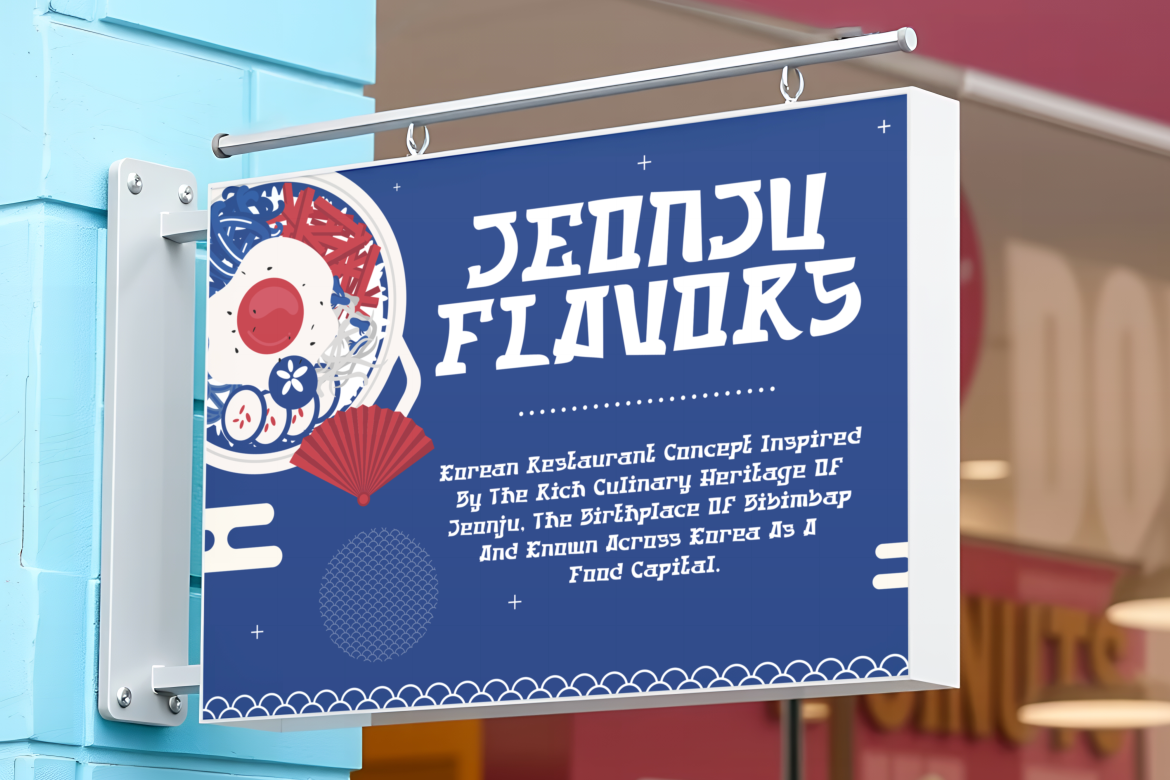
In the food industry, packaging often determines whether a customer notices a product or ignores it. While photography, colors, and illustrations play important roles, typography is frequently the element that creates the strongest first impression.
The best noodles font does more than display a product name. It communicates flavor, culture, personality, and brand positioning within seconds. Whether you’re launching a premium ramen brand, a playful instant noodle product, or a modern Asian fusion concept, choosing the right font can significantly improve shelf appeal and brand recognition.
Today’s noodle packaging trends are moving toward bold cultural storytelling, distinctive typography, and memorable visual identities. Brands are increasingly using expressive display fonts to create stronger emotional connections with consumers and stand out in crowded retail environments. Fonts inspired by Asian culture, street food aesthetics, and handcrafted signage have become particularly effective for noodle branding.
In this guide, we’ll explore how typography influences noodle packaging and reveal five of the best noodles fonts available for modern food brands.
Initial Suggestion
Before choosing a font for your noodle packaging, consider these branding principles:
Understand Your Target Market
Different audiences respond to different visual styles.
For example:
- Premium ramen consumers often prefer sophisticated typography.
- Family-oriented instant noodle brands benefit from friendly and approachable fonts.
- Street food brands often use bold and energetic lettering.
- Asian fusion products may combine cultural inspiration with modern design.
Match Typography to Product Personality
Ask yourself:
- Is your product playful?
- Traditional?
- Premium?
- Modern?
- Authentic Asian-inspired?
Your font should immediately communicate the answer.
Focus on Shelf Visibility
Noodle packaging competes with dozens of products in the same category.
A strong display font helps:
- Improve brand recognition
- Increase visibility from a distance
- Create stronger visual hierarchy
- Enhance memorability
Build a Complete Brand System
The best noodle brands don’t rely solely on logos.
Typography should work consistently across:
- Packaging
- Product labels
- Social media
- Advertising
- Restaurant signage
- Website design
1. Samgye Style Bold Korean Style Font
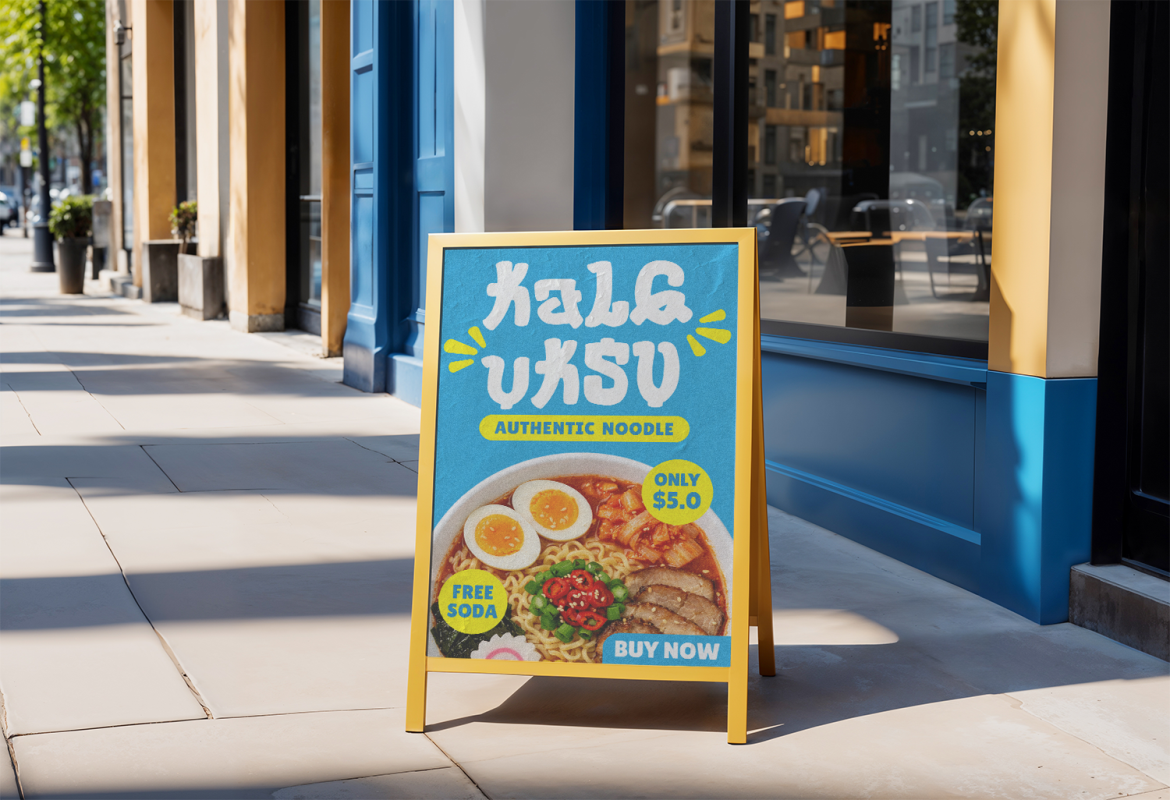
Perfect for brands inspired by Korean food culture, ramen shops, and contemporary Asian street food concepts.
Pros
- Bold and highly visible
- Friendly rounded forms
- Strong shelf impact
- Excellent readability
- Captures modern Korean food culture aesthetics
- Korean noodle brands
- Ramen packaging
- Street food businesses
- Food festival branding
- Restaurant logos
- Asian-inspired packaging
The thick and playful letterforms create a welcoming personality while maintaining excellent visibility on packaging and promotional materials. Its hand-drawn appearance adds authenticity and energy that food brands often seek.
2. Noodle Twine Playful Monoline Font
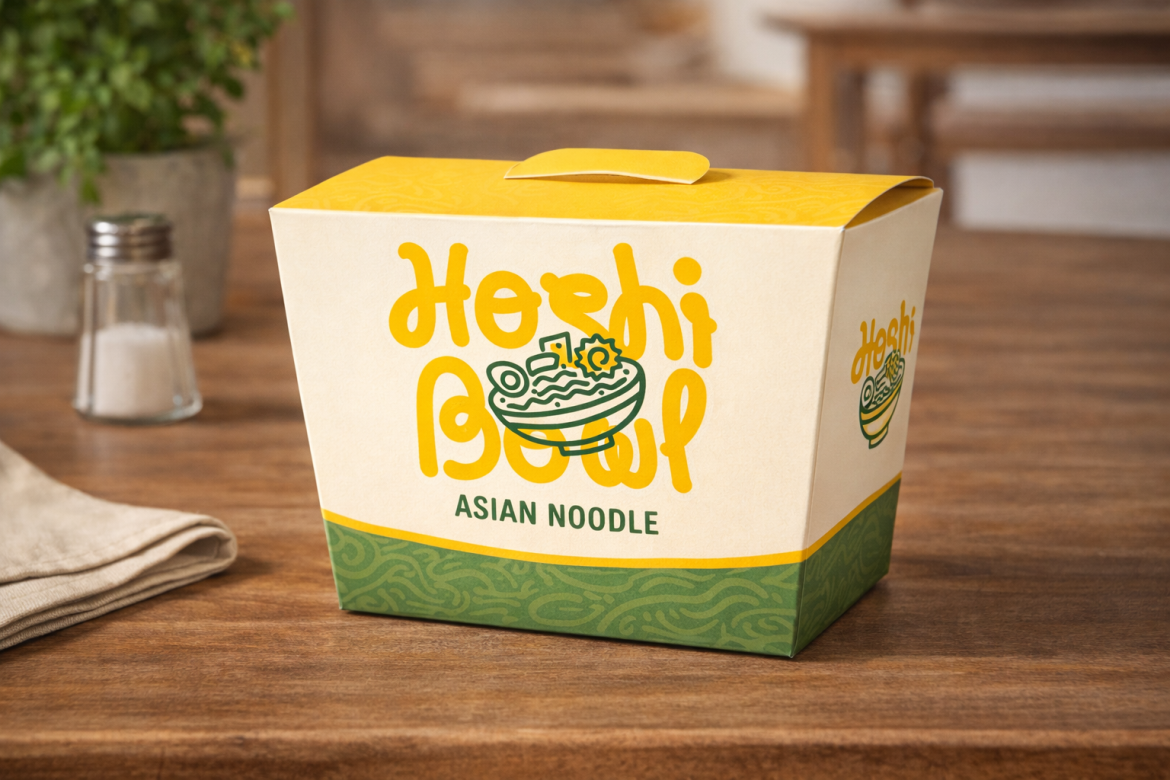
A cheerful and approachable font specifically suited for noodle-related branding projects.
Pros
- Clean monoline construction
- Friendly personality
- Highly versatile
- Easy to read
- Modern handcrafted appearance
- Instant noodle packaging
- Family-friendly food brands
- Casual restaurants
- Food stalls
- Café branding
- Menu designs
The rounded shapes create a comforting and approachable feel. This font works exceptionally well for brands targeting everyday consumers and families who value familiarity and warmth.
3. Noodle Factory Curly Food Font
If your goal is to create a playful and memorable noodle brand, Noodle Factory delivers personality immediately.
- Food-focused design style
- Distinctive character
- Fun and memorable appearance
- Strong branding potential
- Great packaging visibility
- Instant noodles
- Children’s food products
- Snack brands
- Food trucks
- Restaurant promotions
- Social media campaigns
Its expressive style helps create a strong emotional connection with consumers while making the brand instantly recognizable across various touchpoints.
4. Chinese Empire Chinese Style Font
A bold display font inspired by traditional East Asian visual culture.
- Strong cultural identity
- Excellent headline performance
- Premium appearance
- High visual impact
- Memorable branding potential
- Chinese noodle packaging
- Dim sum brands
- Traditional food products
- Festival promotions
- Asian restaurant branding
- Premium food packaging
The structured forms and bold construction create authority and authenticity. This font is ideal for brands that want to emphasize heritage and cultural storytelling.
If you’re building a noodle brand in 2026, investing in a distinctive font may be one of the smartest branding decisions you can make.